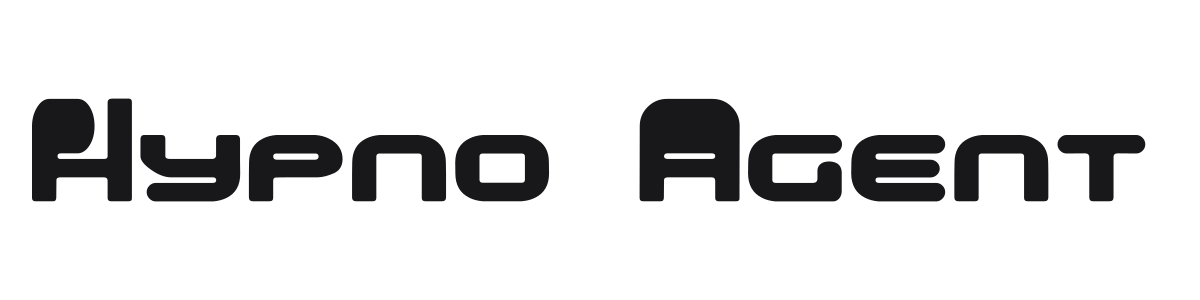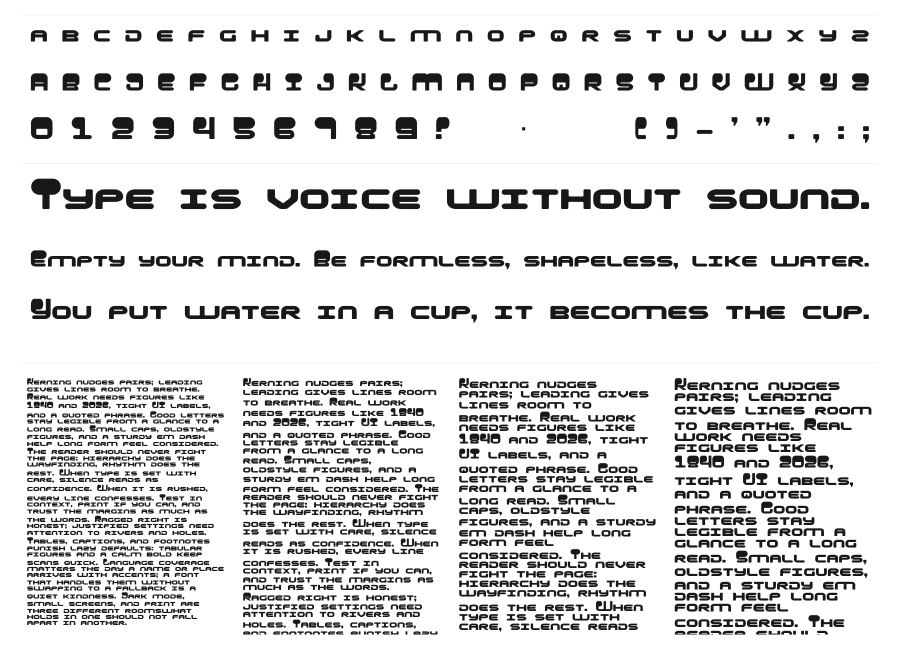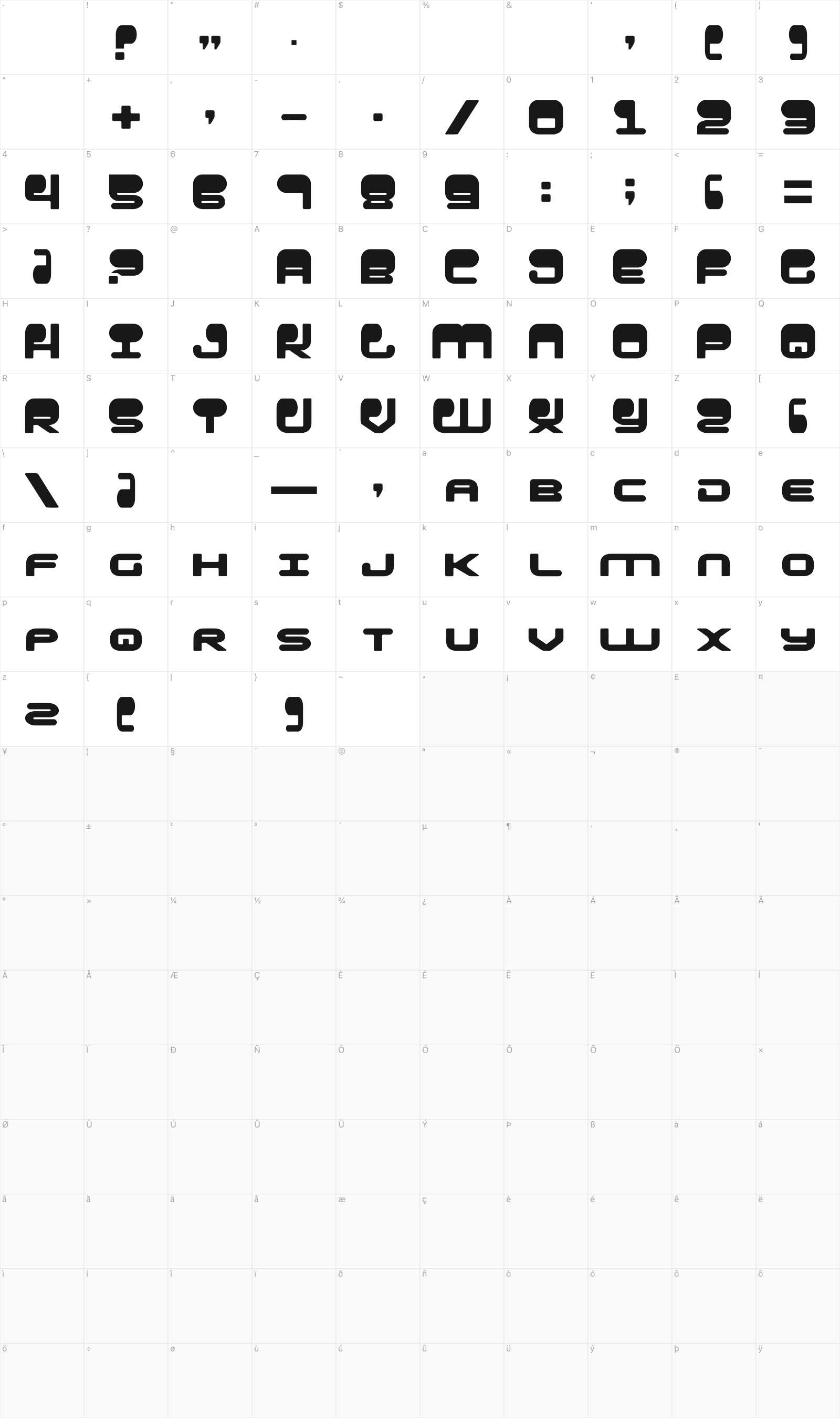
Hypno Agent
Hypno Agent is a heavy square techno sans with wide proportions, uniform stroke weight, and softly rounded outer corners that give it a distinctly mechanical character. The blocky, modular construction recalls late-1990s sci-fi and action design sensibilities. It reads clearly at large sizes and carries a strong sense of covert authority.